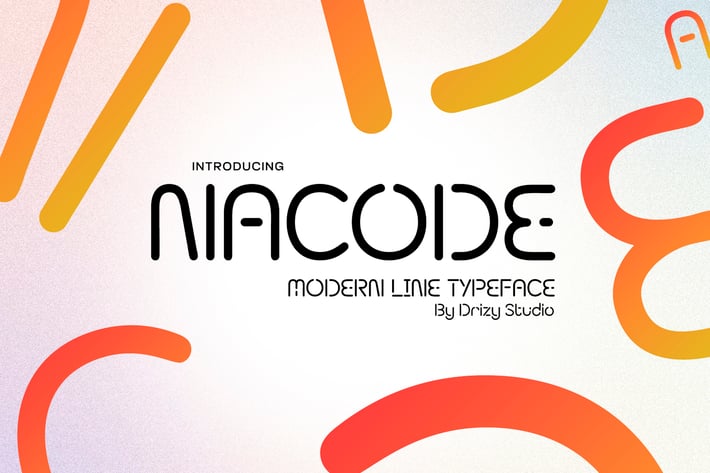
Nacode - Modern Line Futuristic Font
Nacode - Modern Line Futuristic Font from Drizy Studio. Offering all the styles you need for your projects.
Nacode features:
Punctuation & Numbers
Ligatures
Alternates